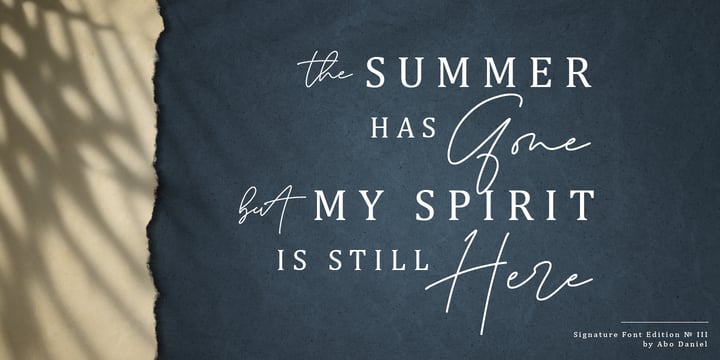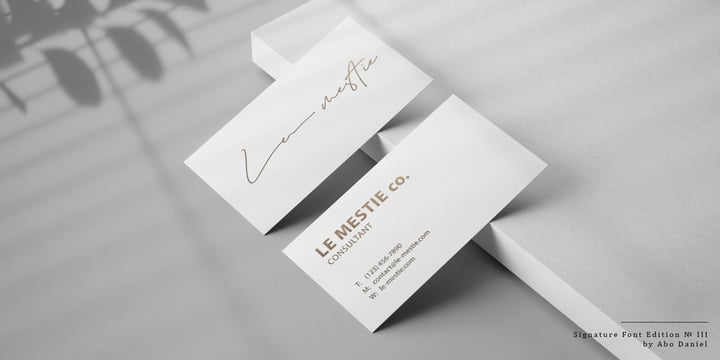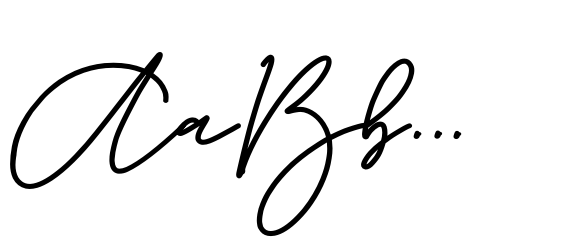
La storia
by Abo Daniel
The La storia Font Family was designed by Abo Daniel and published by Abo Daniel. La storia contains 2 styles and family package options. More about this family
Introducing La storia - a fine tip signature font. Beautiful monoline signature, looking so classy and natural. There are 2 version, - Regular - Bold La storia is perfect for branding, photography, invitations, quotes, watermarks, advertisements, product designs, labels, and more that needs a natural sign feel. Includes number-punctuations and multilingual support. I created 89 ligatures to keep this font looks natural. at ct dt et ft gt ht it jt kt lt mt nt ot qt rt st tt ut vt wt xt zt an in un en on ar ir ur er or aa ant int unt ent ont att itt utt ett ott ii ee oo uu ff rr ss xx zz ll adl idl udl edl odl ald ild uld eld old art irt urt ert ort fl fh fb jl Fr Gr Hr Ir Kr Mr Nr Or Pr Tr Ur Vr Wr Dr space-r Titling and Ending Swash - Quick Access Add underscore 2x before or after a lowercase (you can see this on the presentation posters). For example a_ _ or _ _a Swash Lines make this font complete. Add underscore 2x before numbers from 1 to 9, you'll get 9 variations of swash line (as shown in the posters). For example _ _1 Thank You so Much!
La storia